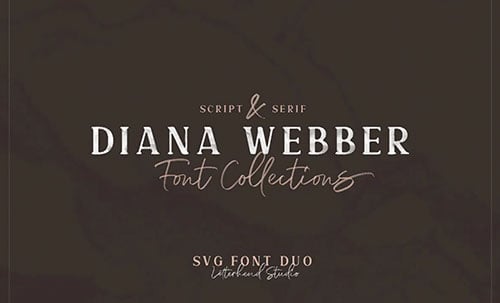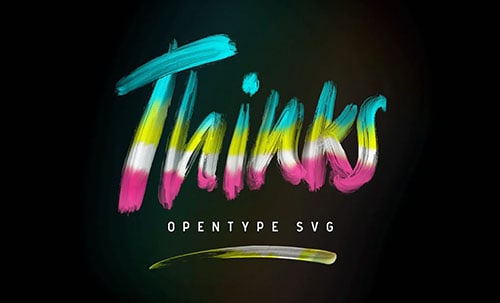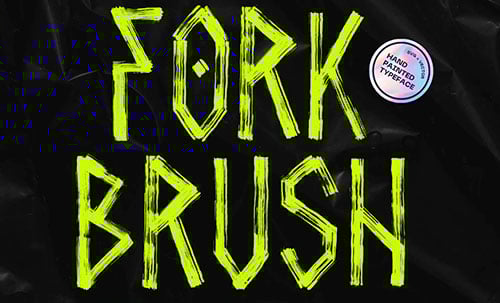
25+ Free SVG Fonts (Font Files to Download Now)
SVG fonts are a cool addition to the world of fonts that can add new life to a tired design. Today we're featuring over 25 of the best free SVG fonts around, as well as a selection of premium SVG fonts from Envato Elements.
12+ Premium SVG Fonts From Envato Elements
1. Futuristico SVG Color Font (SVG)
Looking for cool SVG monogram fonts? How about Futuristico SVG Color Font? This awesome display font offers complex and stylish geometric shapes that include gradients and multiple colours in a single SVG font glyph. Guaranteed to catch the eye, this is definitely one for your SVG font library.
2. Ciera Watercolor SVG Calligraphy Font (SVG, EPS, PSD)
Ciera Watercolor SVG Calligraphy Font is a dreamy collection of four SVG fonts, 23 floral illustrations, and six premade logos. There are two versions of this gorgeous font: one with watercolour texture included and the other a solid version. This is a great collection for creating monograms, wedding invitations, titles, etc.
3. Morriles Font (SVG)
Morriles is a beautiful handmade font with a brush style that's also offered in TTF and OTF. Add it to your SVG font library and pull it out when you need realistic handwriting with an artistic feel.
4. 3D SVG Color Font (SVG)
Here's another SVG font example that you need for your library. This 3D SVG colour font is all sorts of awesome. Use it when you need SVG monogram fonts or a display font for your next project.
5. Hey Insomnia SVG Font (OTF, TTF, SVG)
When you need a font that won't put your audience to sleep, try Insomnia. It's made with transparent textures and includes ligatures and alternates, so that you can create your own custom font in SVG. So open up Photoshop or Illustrator and get to work.
6. Corn Fruit Loops SVG Color Font (SVG)
How about this fruit loopy SVG colour font? It's guaranteed to put a smile on everyone's face, and you can use Photoshop to create a veritable custom font in SVG that will suit your specific needs. This is also a great option if you're looking for an SVG monogram font with a bit of a twist.
7. Pastelle SVG Font (SVG, PUA)
When you need a painterly font for greeting cards, invitations, and the like, choose Pastelle SVG Font, with its natural textured feel that'll bring an authentic artistic touch to your projects. The font includes upper and lowercase characters, punctuation, symbols, and numerals. It also includes stylistic alternates and ligatures to make this SVG font uniquely yours.
8. Stencil Autobahn SVG Font Bold (SVG, OTF)
What could be cooler than a font that really captures the essence of spraypaint stencil? Well, that's exactly what Stencil Autobahn SVG Font Bold delivers. This bold display typeface is full of street attitude, and with the included bonus spray-paint drips, you can recreate that attitude in your own projects. The font offers uppercase characters with at least two alternatives for each letter, so you can really make this SVG font your own.
9. Estoria Script SVG Font (SVG, OTF)
Here's another gorgeous SVG calligraphic font that's an excellent choice when you need an authentic-looking signature for your projects. The font contains both uppercase and lowercase characters, numbers, and punctuation. This elegant font would make a great addition to your SVG font library.
10. Bluesky SVG Font (Opentype-SVG)
Check out this awesome premium font for your SVG font library. This one offers a wonderful 3D look created by shadows included in each SVG font glyph. The font includes upper and lowercase characters, numbers, punctuation, alternative characters, and multilingual characters. Use this bold SVG font for logos, titles, packaging, posters, and more.
11. Karelle SVG: An Organic Serif (SVG, OTF)
Karelle SVG is a beautiful font that uses a painterly technique to create an SVG font that is at once strong and delicate. The font includes upper and lowercase characters, numbers, symbols, and punctuation, as well as several alternates that will help you make this SVG font your own.
12. Maryatha SVG Calligraphy Font (SVG)
We round up our list of premium SVG fonts with this fabulous script font. Using a creamy crayon texture to form flowing letters, Maryatha SVG Calligraphy Font offers upper and lowercase letters, numbers, and punctuation, as well as alternate characters. Add this handwritten font to your SVG font library, and pull it out for special projects like greeting cards, invitations, signatures, and the like.